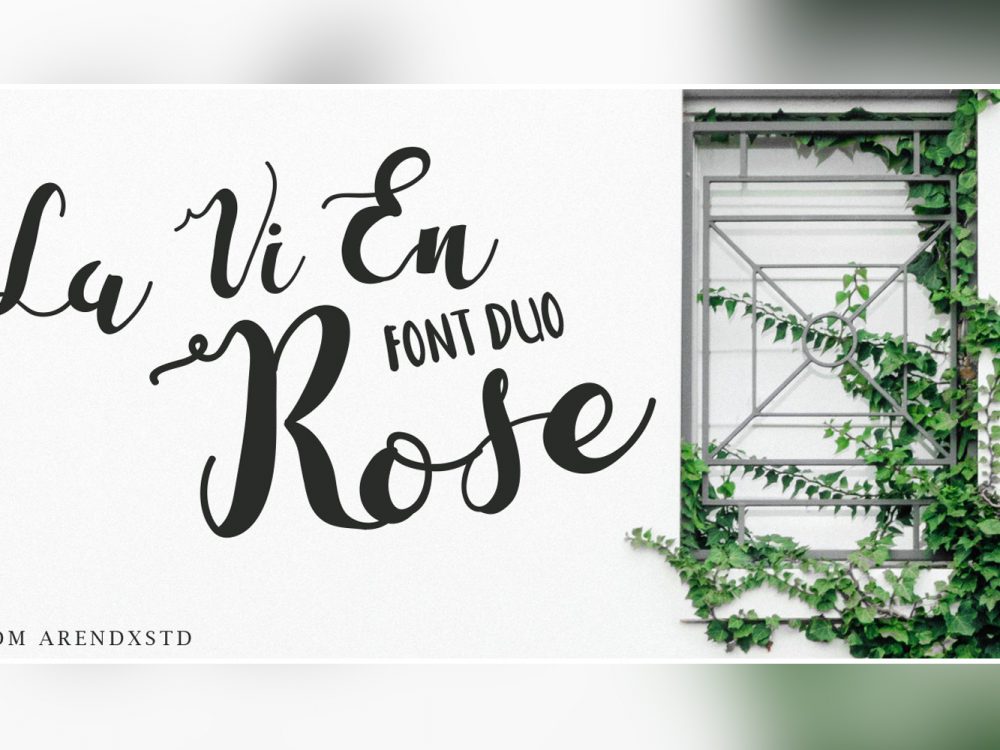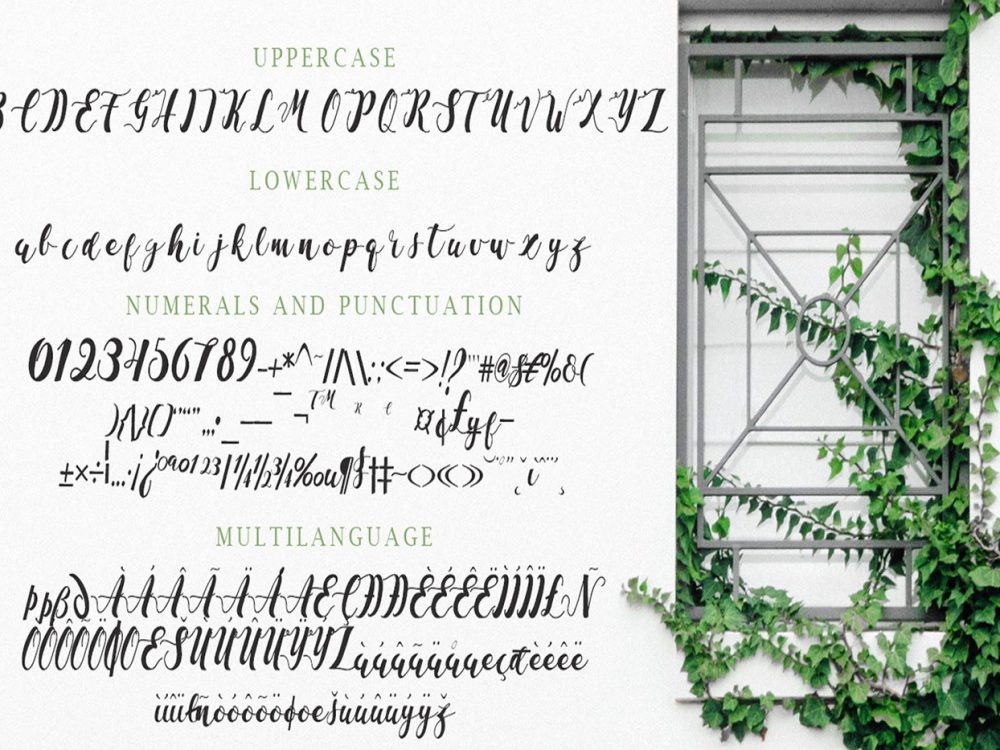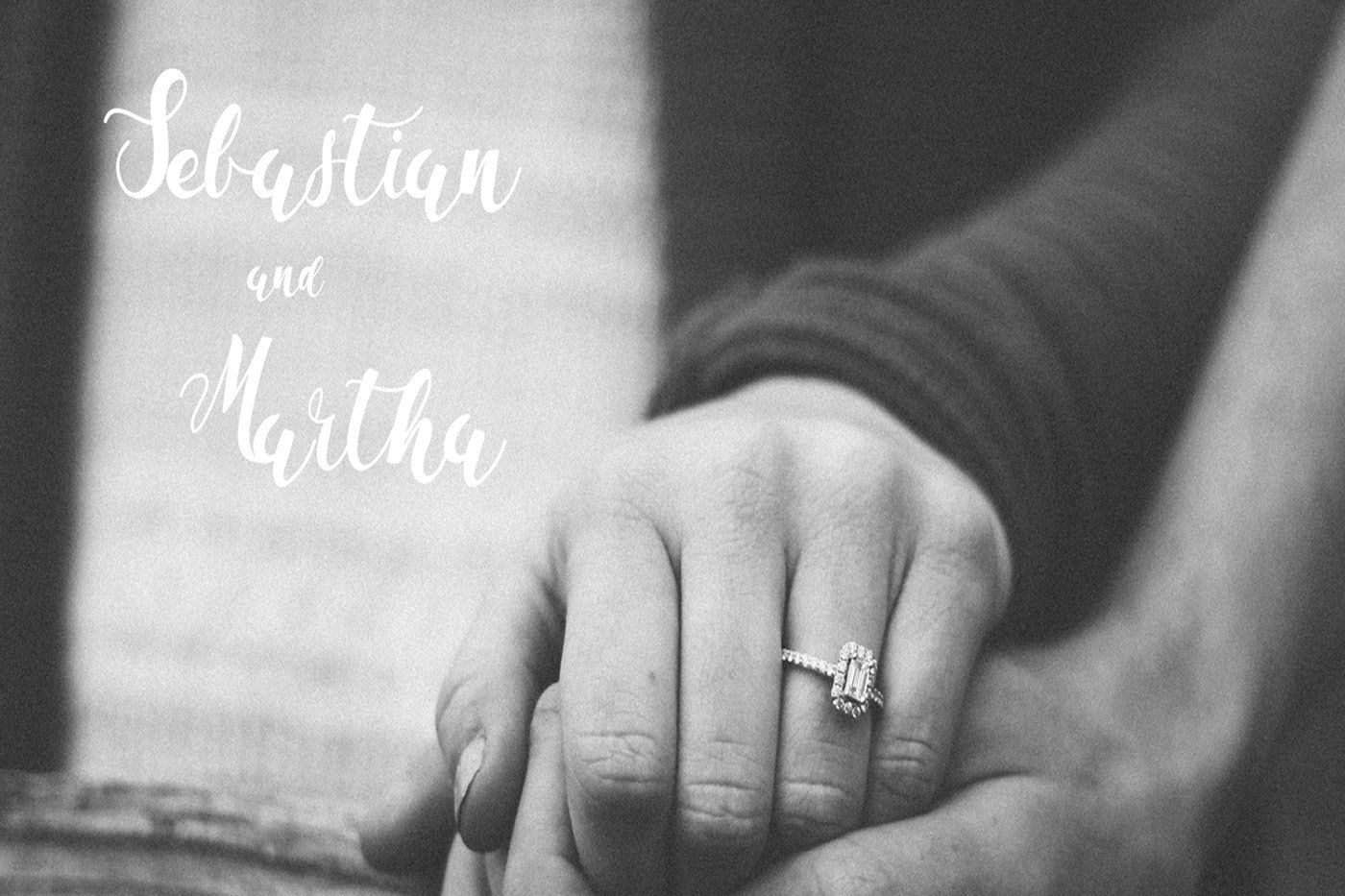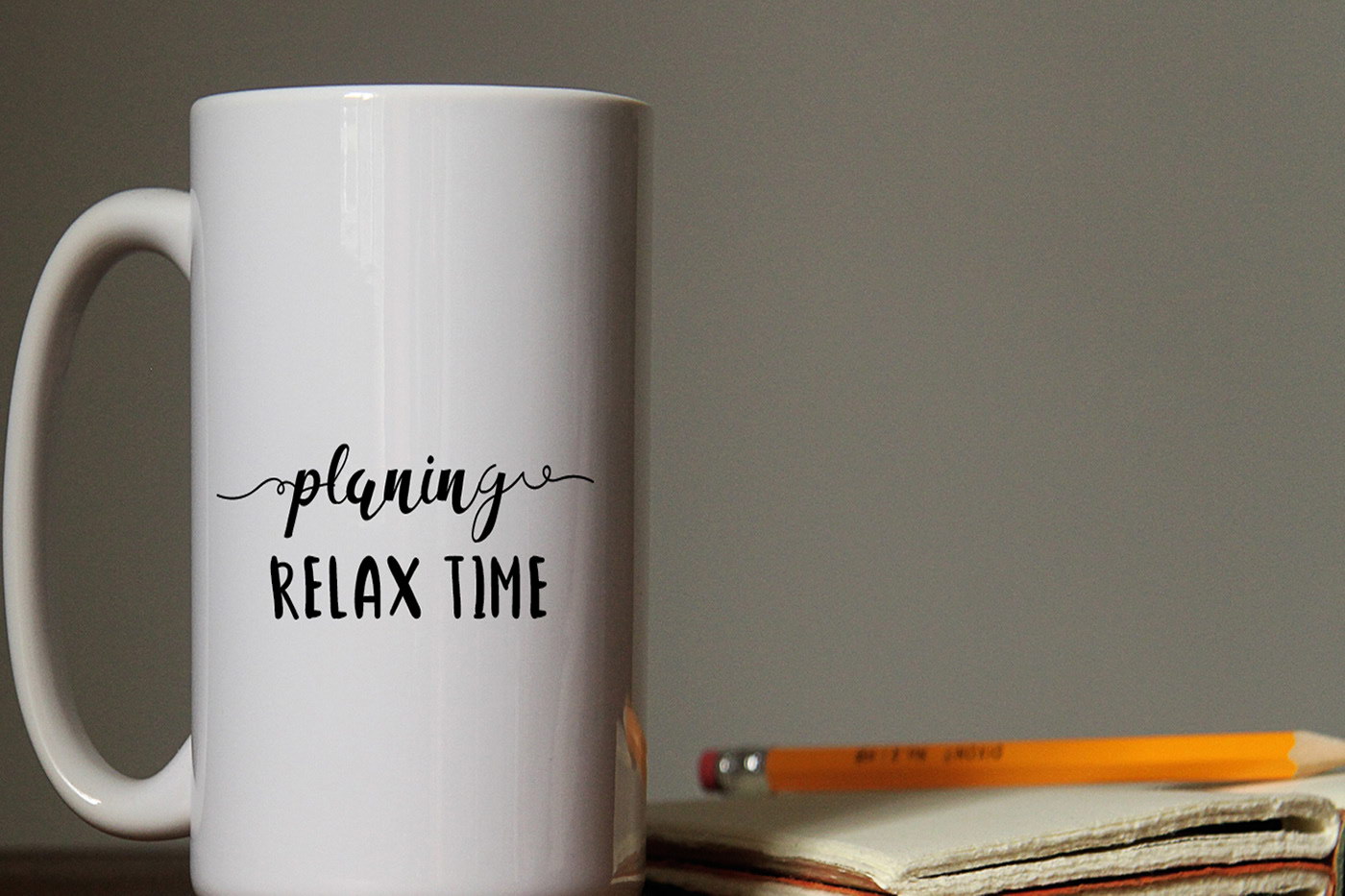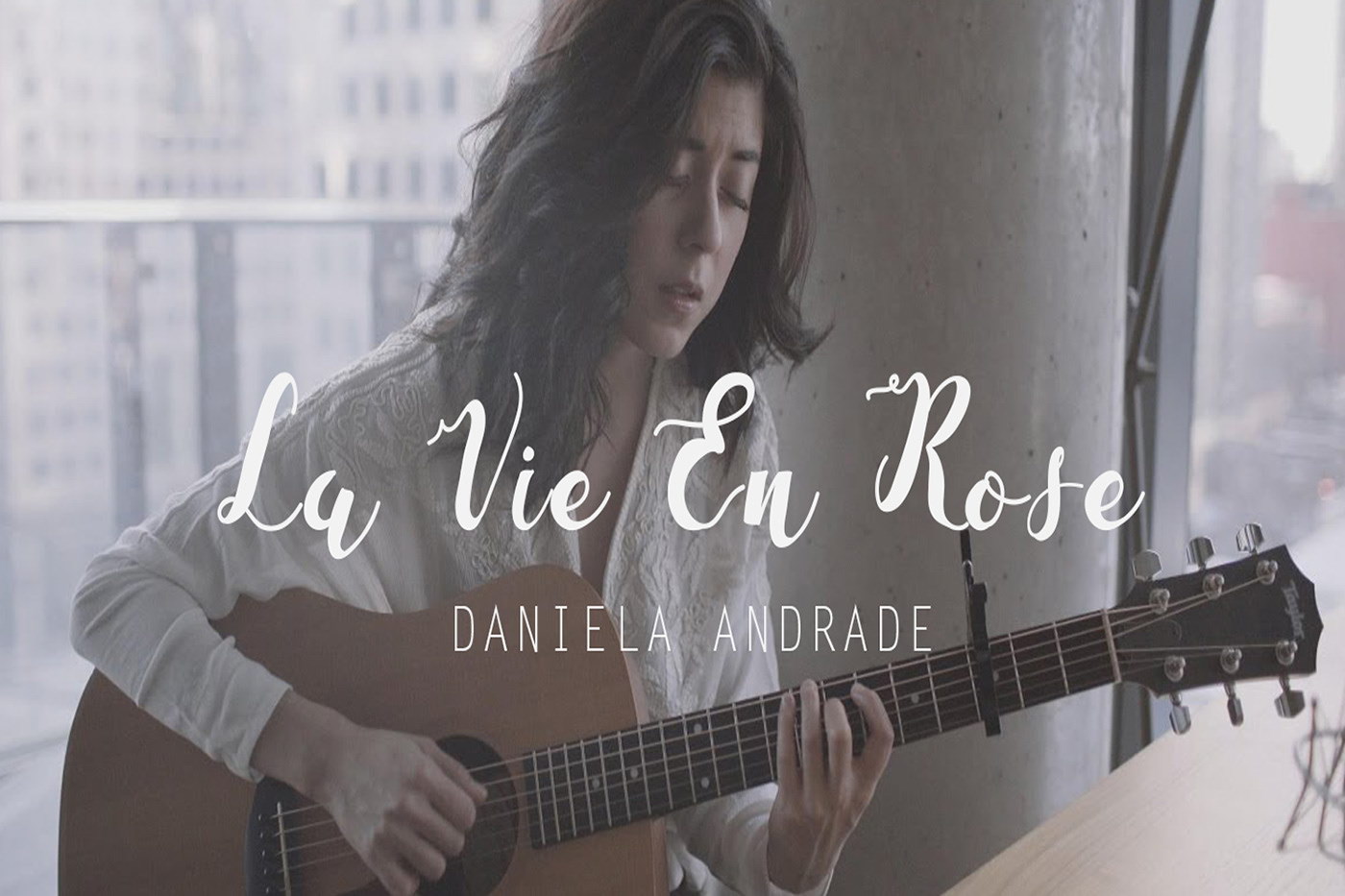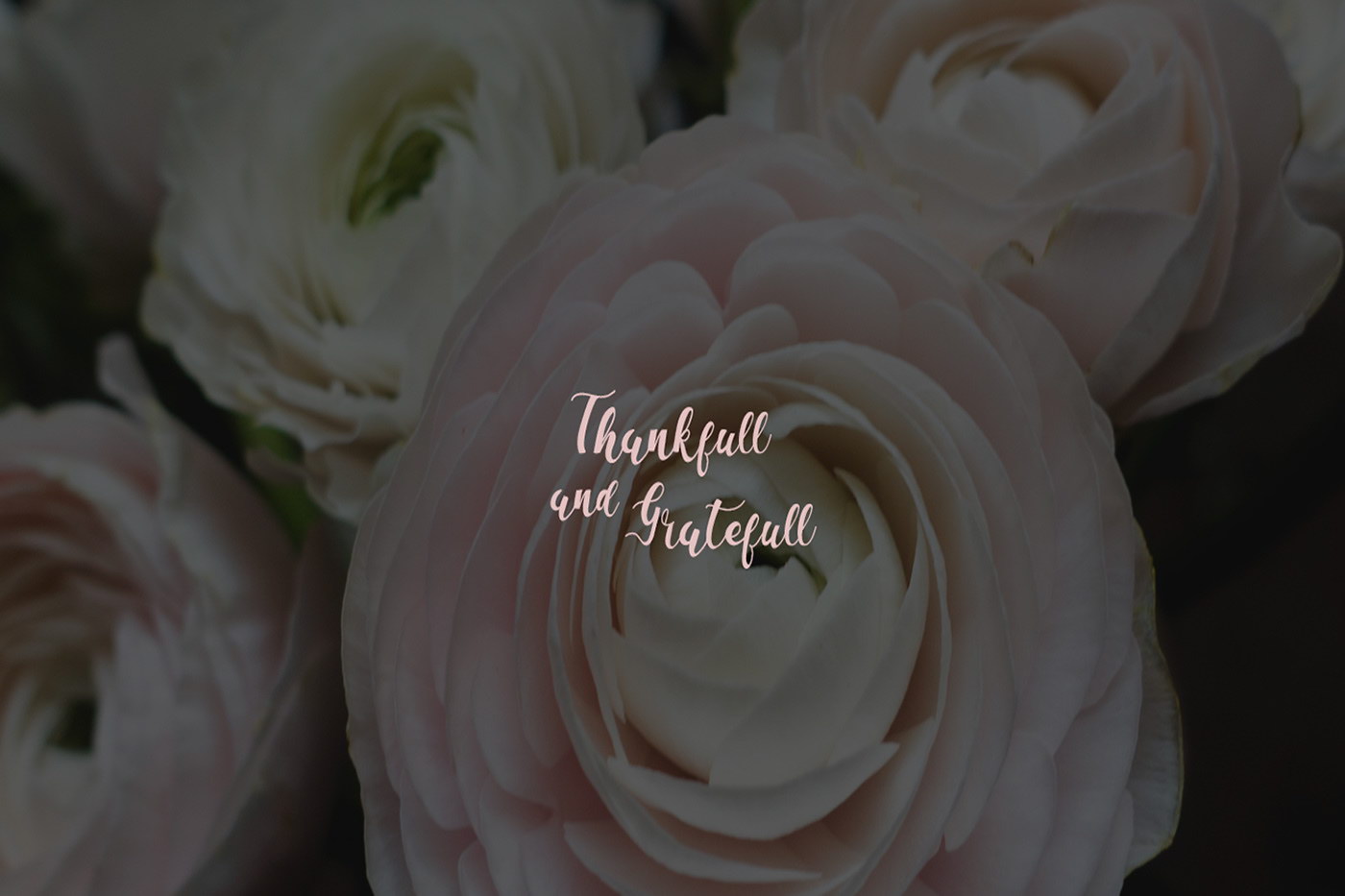
La Vi En Rose Free Script Font
La Vi En Rose Free Script Font is an interesting romantic handwritten font with an elegant style that will work very well for many design projects such as posters, wedding invitations, cards, branding, flyers, prints, and more. Improve your professionalism and create unique designs using this font. Please purchase the full version for commercial use.